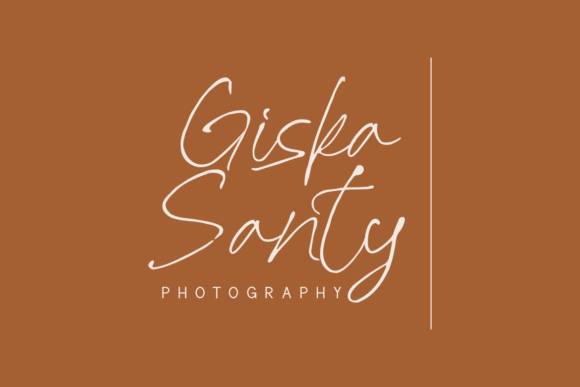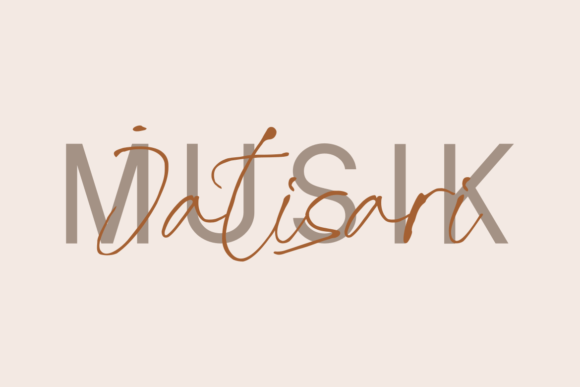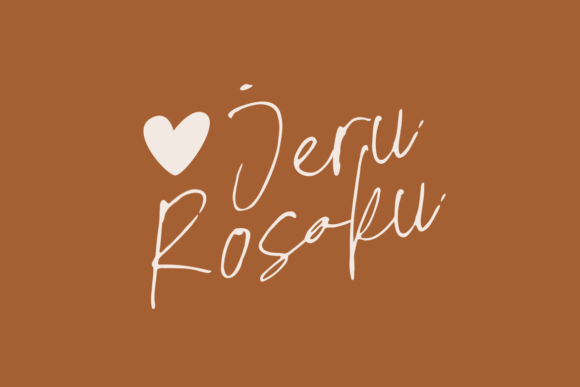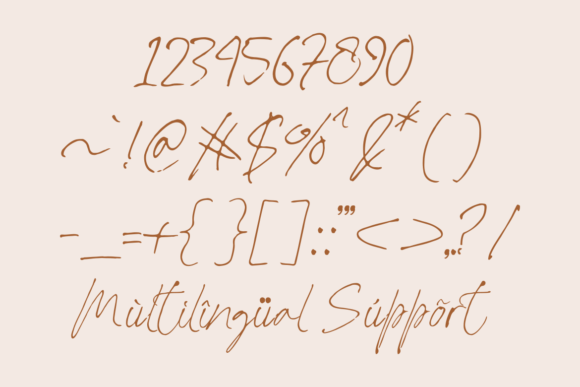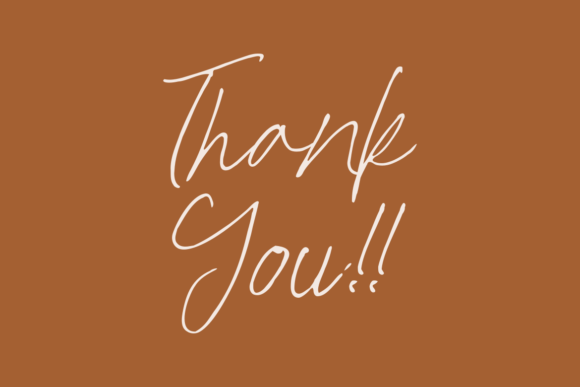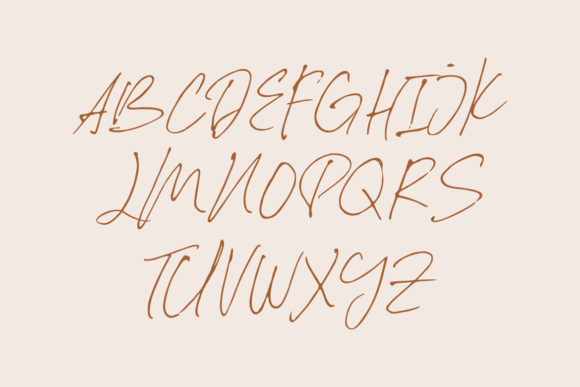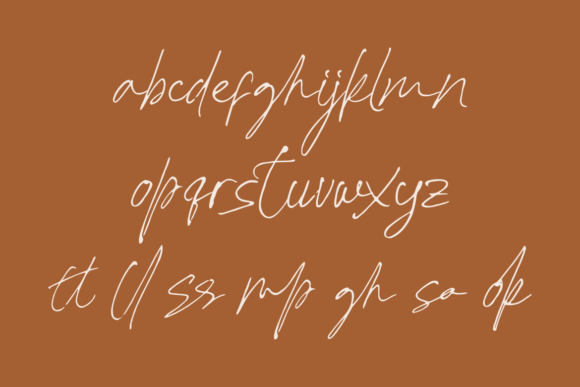
Sallim Besok Font
Sallim Besok Font: Elegant Handwriting for Sophisticated Designs
“Sallim Besok” is a delicate and flowing handwritten font that brings sophistication to your design projects. Its beautiful, well-balanced characters make it versatile for various creative applications.
Key Features of Sallim Besok Font
• Elegant Style: Sallim Besok combines delicacy with refinement.
• Flowing Characters: The font’s graceful lettering adds a creative touch.
• Versatile Use: Suitable for a wide range of design styles and projects.
Invitations and Stationery
Sallim Besok’s elegant style is ideal for creating sophisticated wedding invitations and other special event materials.
Use Sallim Besok to design refined logo designs and branding materials that convey professionalism and creativity.
Poster and Print Design
The font’s distinct look makes it perfect for creating eye-catching posters and print materials.
Why Choose Sallim Besok Font?
Sallim Besok offers more than just beautiful letters. Here’s why it stands out:
• Adds a touch of sophistication to designs
• Creates a lasting impression with its elegant appearance
• Versatile enough for both formal and creative projects
By using Sallim Besok, you open up new design possibilities. Its elegant style works well in many contexts, from business cards to greeting cards. The font’s flowing nature can inspire creative ideas and help you approach projects from a fresh perspective.
Creating a Cohesive Visual Identity
Sallim Besok’s versatility allows it to be used across various brand touchpoints, creating a cohesive and sophisticated visual identity. From website headers to packaging design, this font ensures your brand maintains a consistent and elegant look.
If you’re looking for a font that combines delicacy with elegance, Sallim Besok is an excellent choice. It’s perfect for adding a touch of sophistication to your work, especially for projects that need a refined yet personal feel.
Explore how Sallim Besok can transform your designs. From formal business materials to creative artistic projects, this font brings a timeless and graceful quality to your creations.